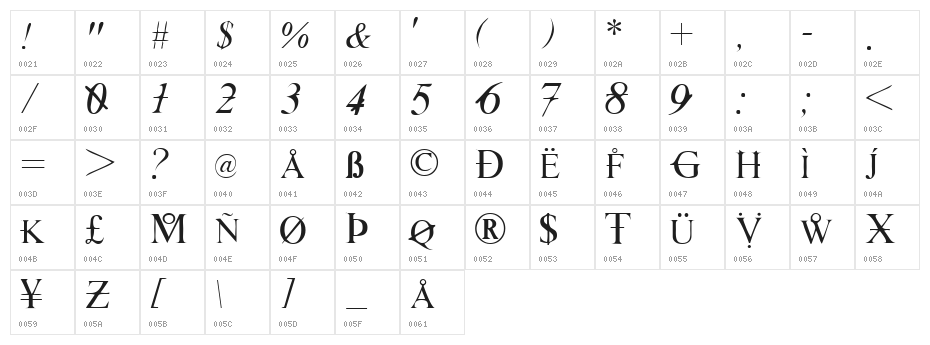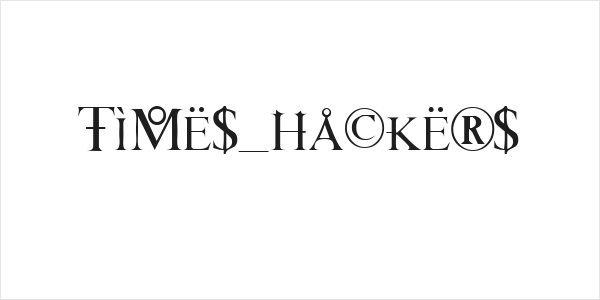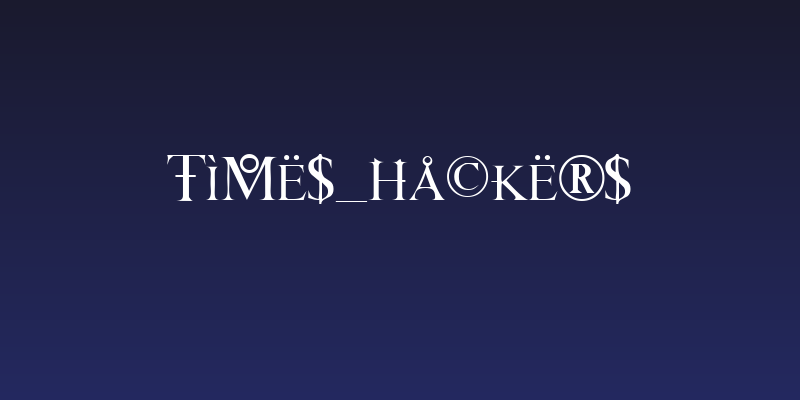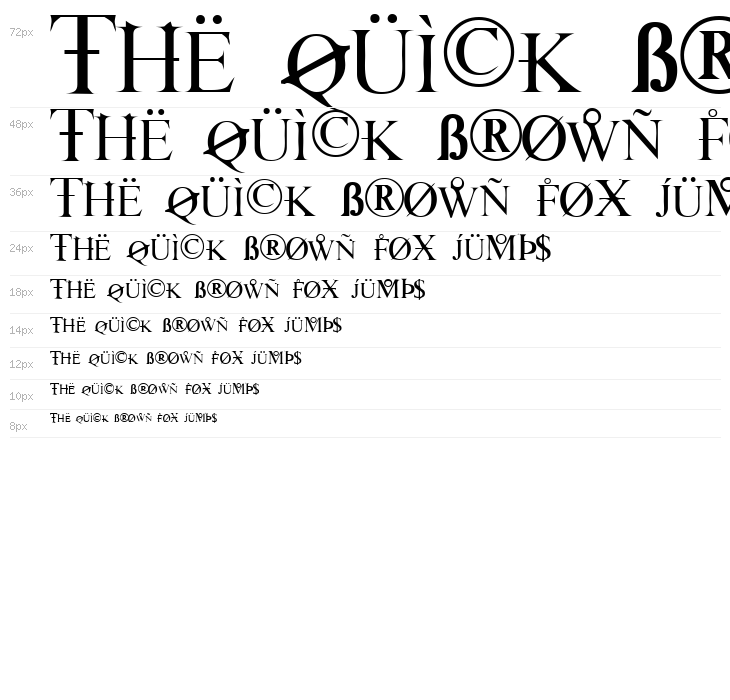
Times_Hackers Font
Times_Hackers Description
This font features a unique blend of classic and modern elements, characterized by its bold and striking appearance. The uppercase letters are adorned with distinctive accents and diacritical marks, adding a touch of sophistication and flair. The numerals are elegantly styled, maintaining a consistent design language throughout. Special characters are creatively integrated, enhancing the font's versatility. The overall design is both decorative and functional, making it suitable for a variety of creative applications.